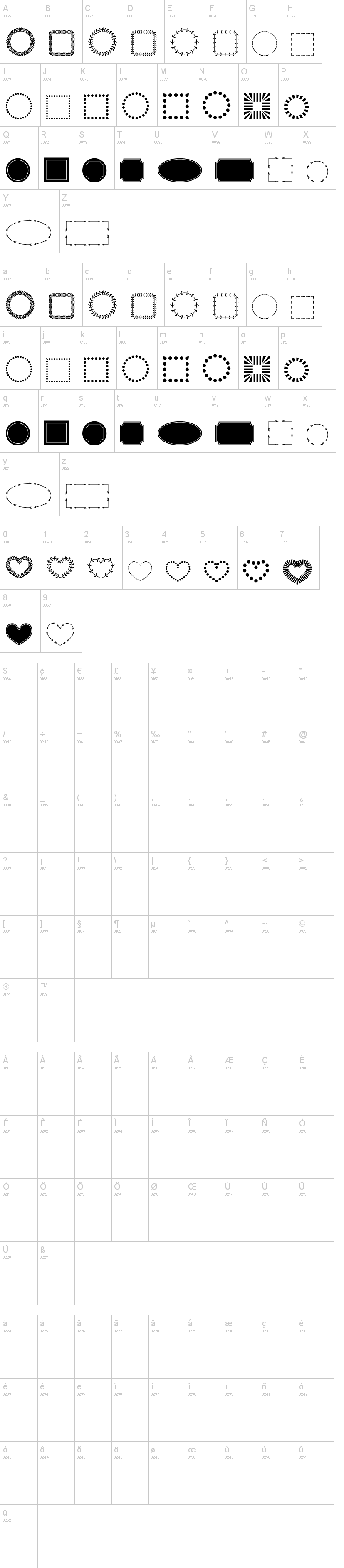
Note of the authorI created this set of frames so that crafters could create instant intricate frames using their cutting software like Silhouette Studio or Design Space.